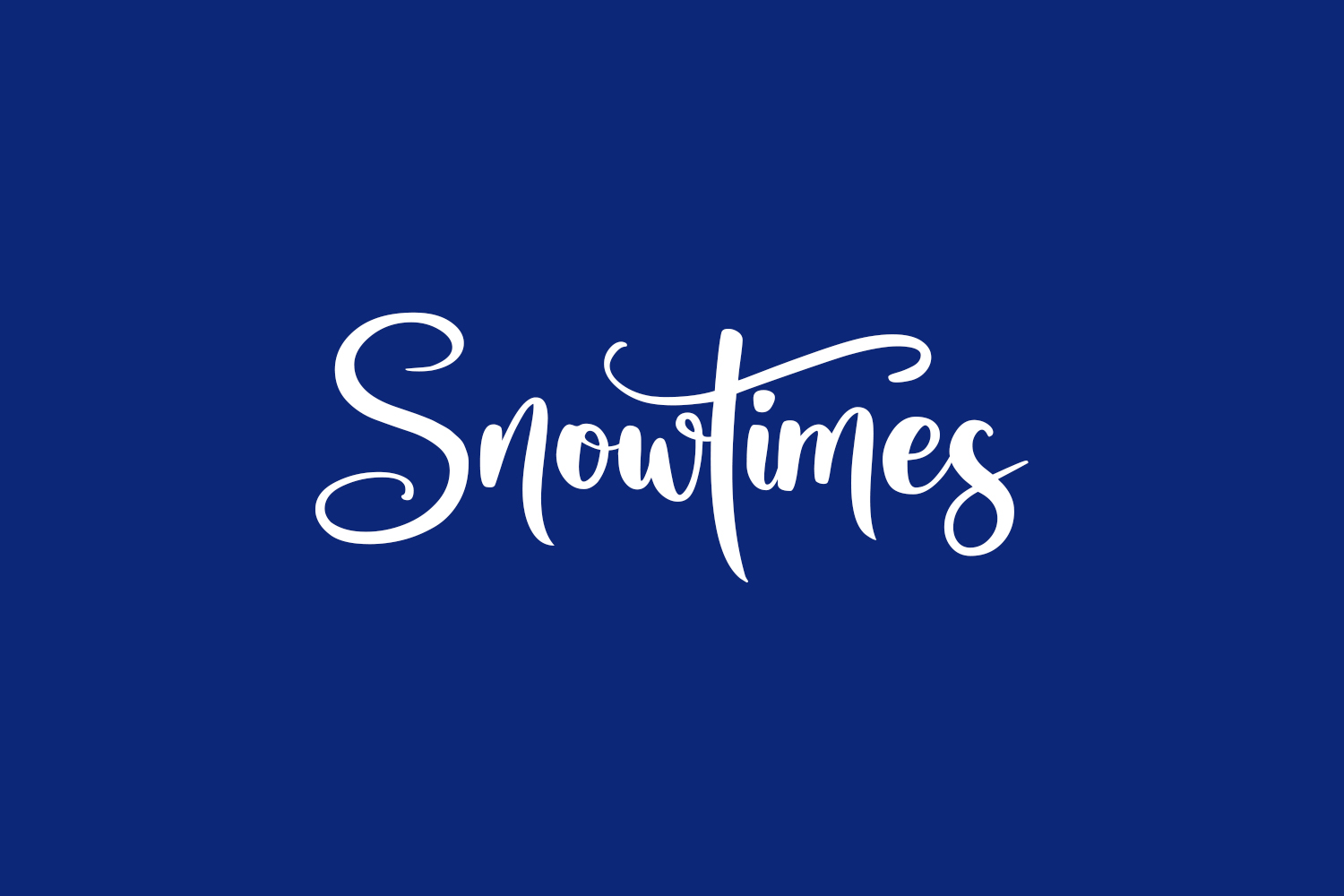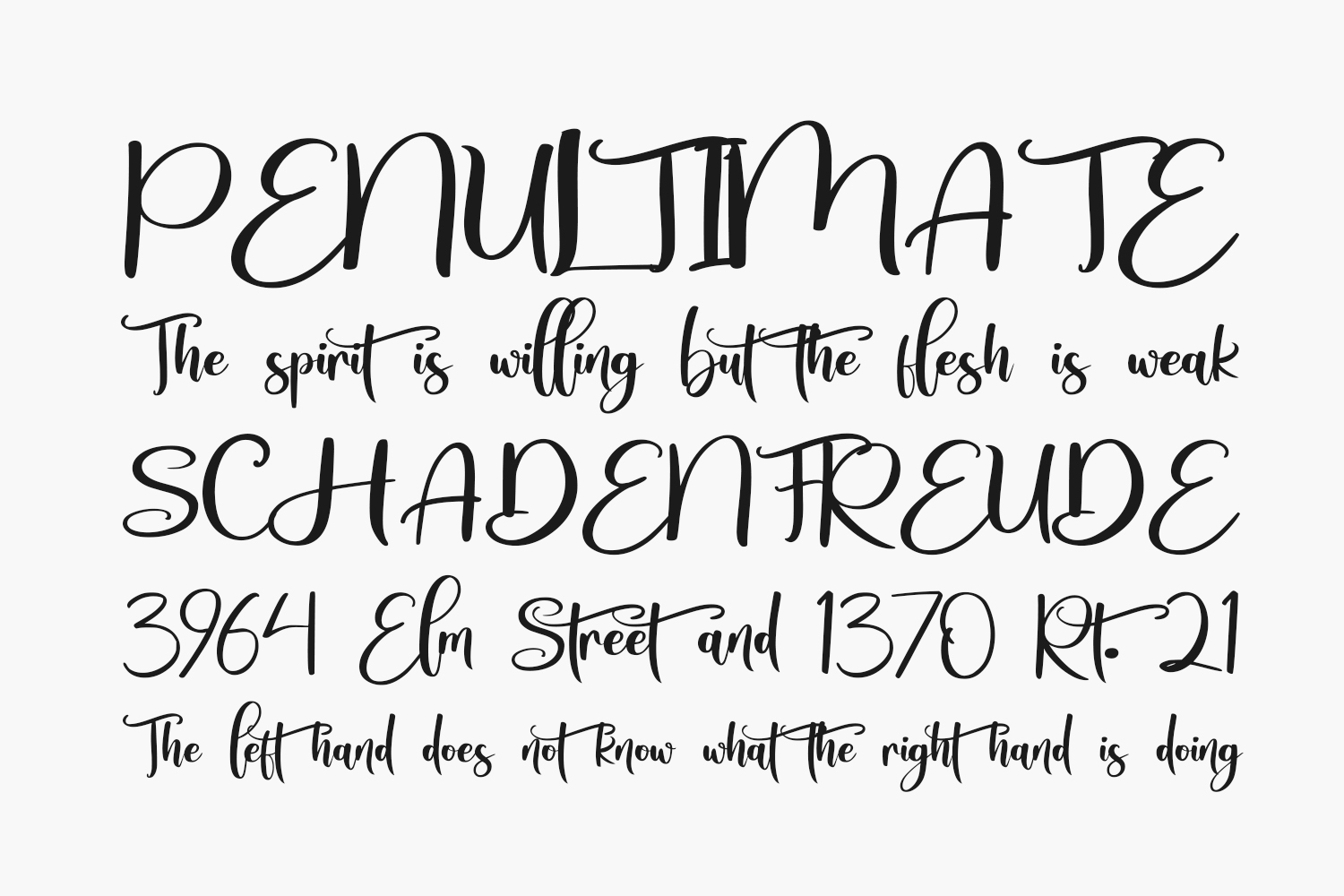
Explore the charm of Snowtimes Free Font Family, a refined and graceful handwritten font. With its unique and harmonious letterforms, this font stands out as a true work of art. Immerse yourself in its remarkable versatility, allowing you to craft stunning designs effortlessly. Let Snowtimes be the inspiration for your next creative endeavor. Snowtimes Free Font was designed by Rissyletter Studio and is free for personal use only. Please purchase the full version for commercial use.
Snowtimes Regular The quick brown fox jumps over the lazy dog
Snowtimes Italic The quick brown fox jumps over the lazy dog